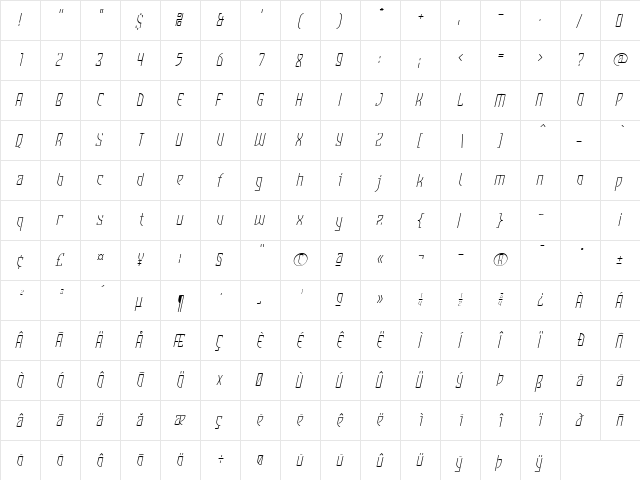
Komunique LightItalic
Design Context for Komunique Typeface
Komunique takes a measured approach to typography — its balanced proportions and neutral character make it a reliable workhorse for both digital and print work. Its italic angle brings a sense of urgency and motion to the letterforms. Its slender proportions lend an understated elegance to any composition.
Pro Tip: Use Komunique for emphasis, pull quotes, and subheadings where its slanted energy can add rhythm to the layout.